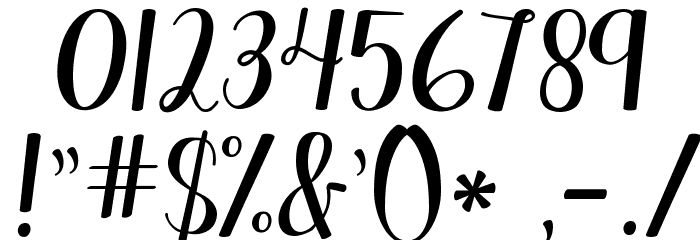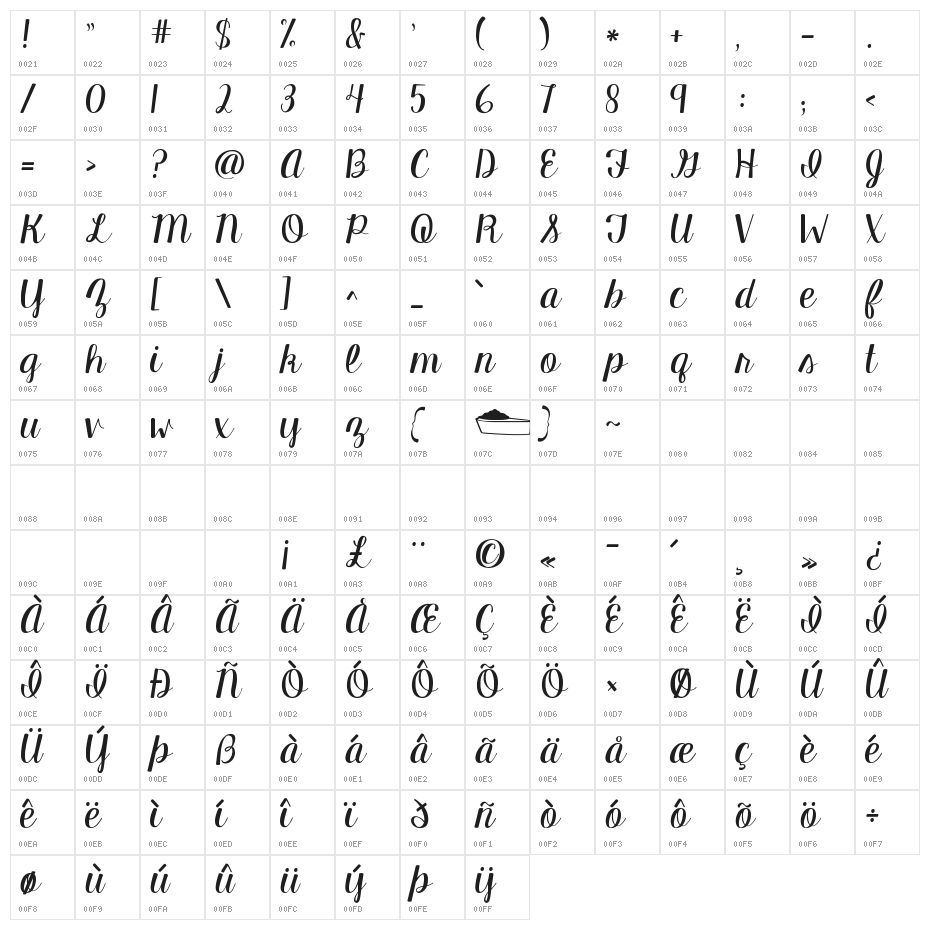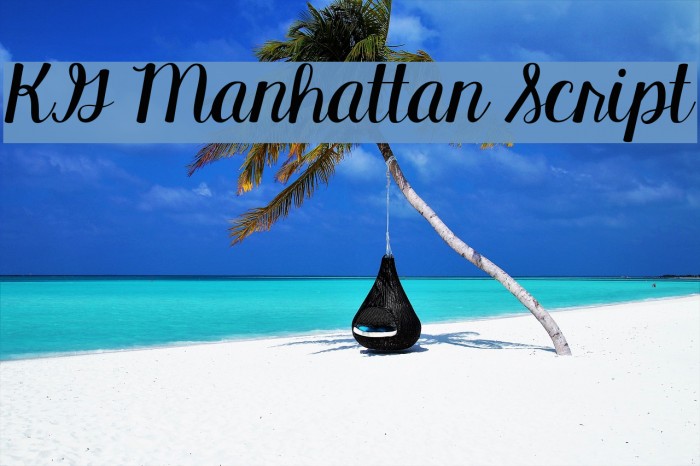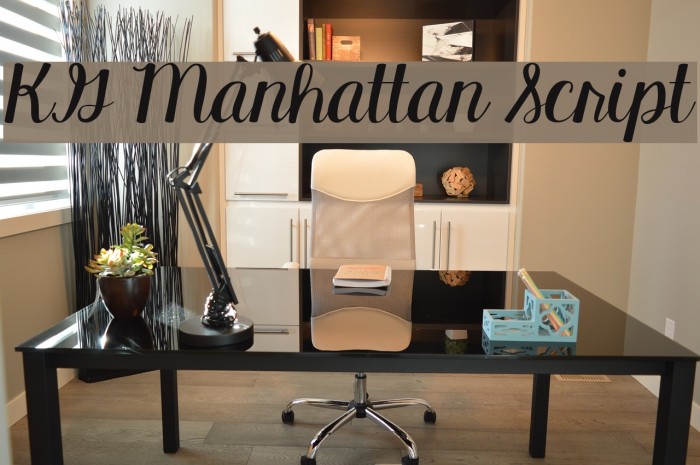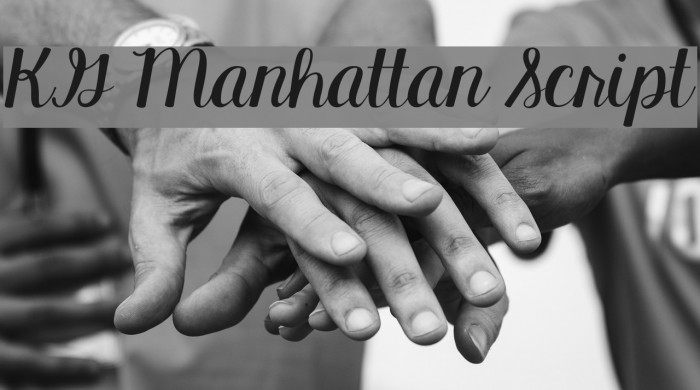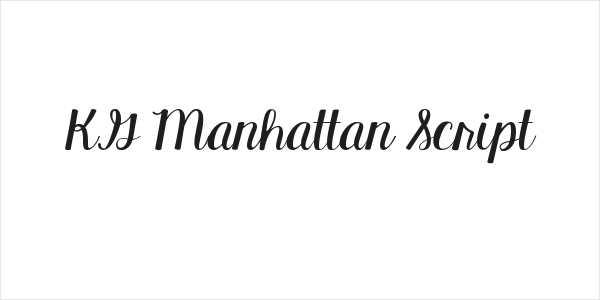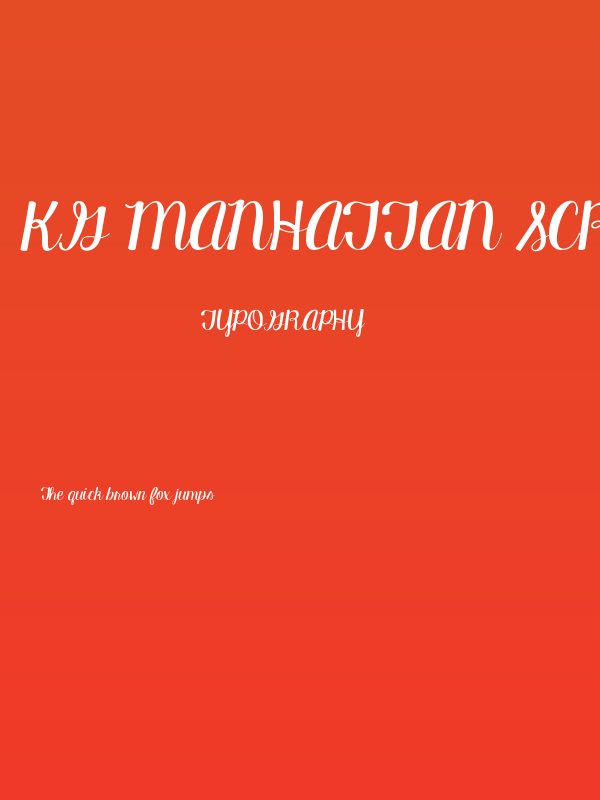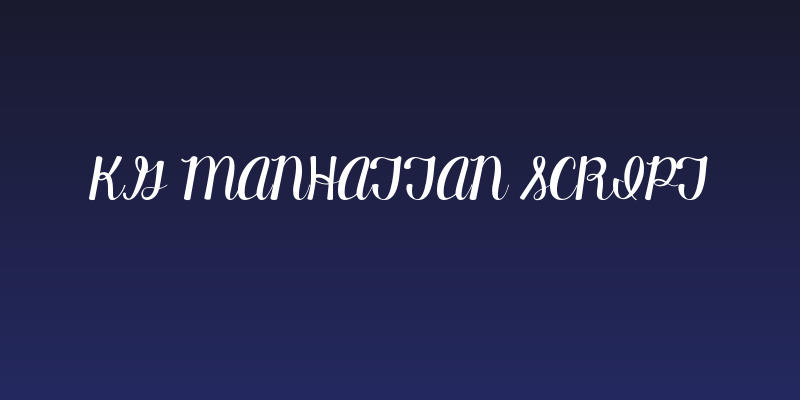
KG Manhattan Script Font
KG Manhattan Script Description
This font features a flowing, cursive style with elegant loops and swashes, creating a sense of movement and grace. The uppercase letters are bold and prominent, with distinctive flourishes that add a touch of sophistication. The lowercase letters maintain a consistent flow, with smooth connections between characters, enhancing readability while retaining an artistic flair. Numbers and special characters are designed to complement the overall script style, ensuring a cohesive look across all text elements. This font's dynamic and stylish appearance makes it suitable for a variety of creative applications.